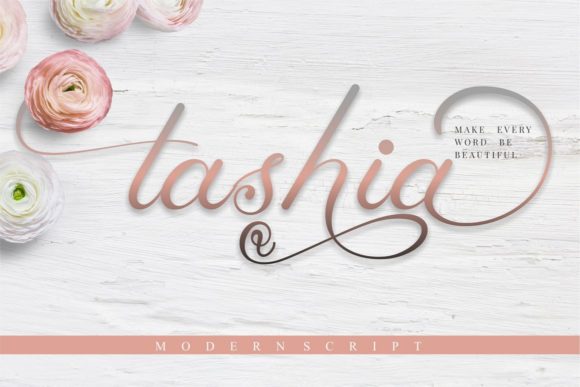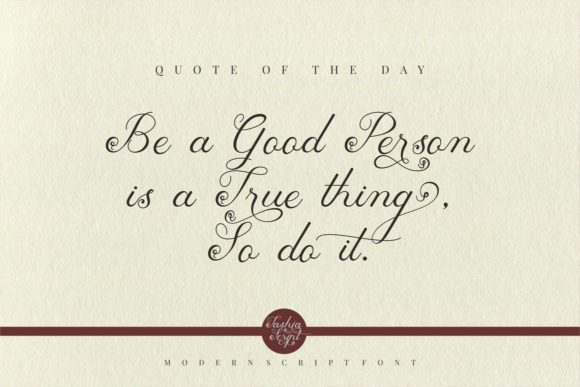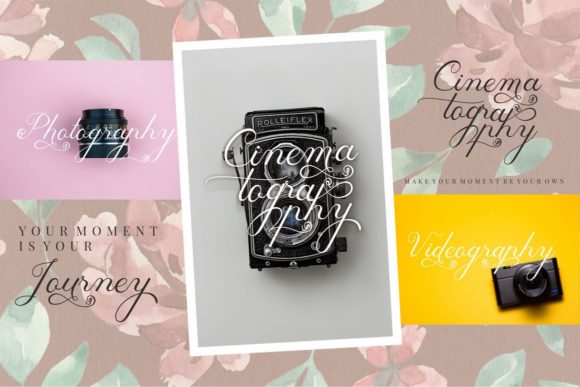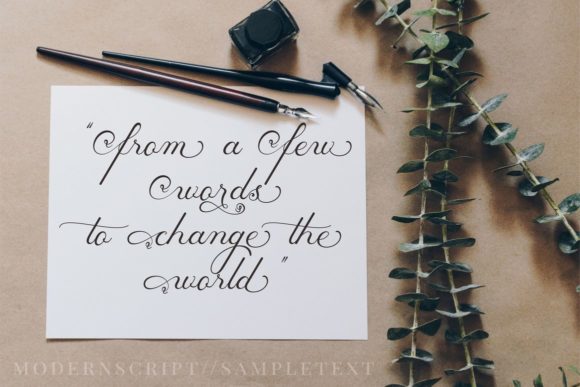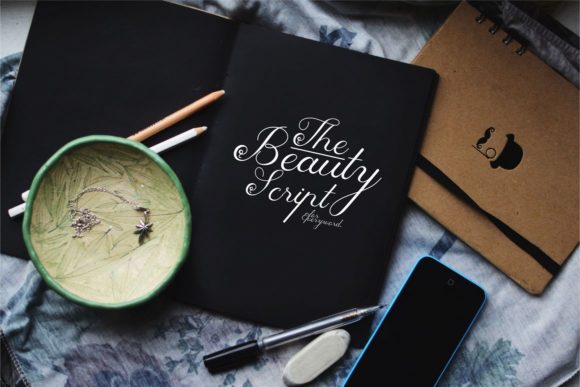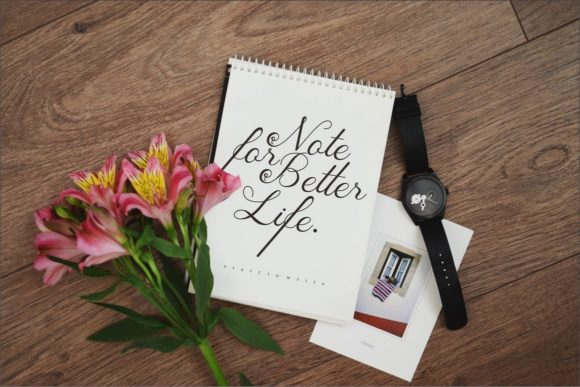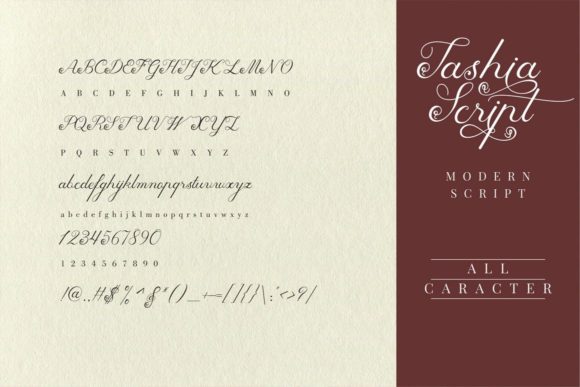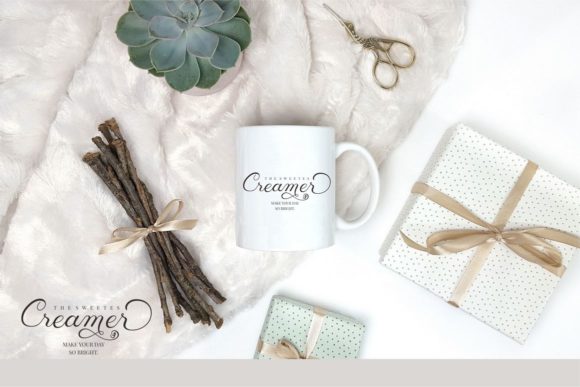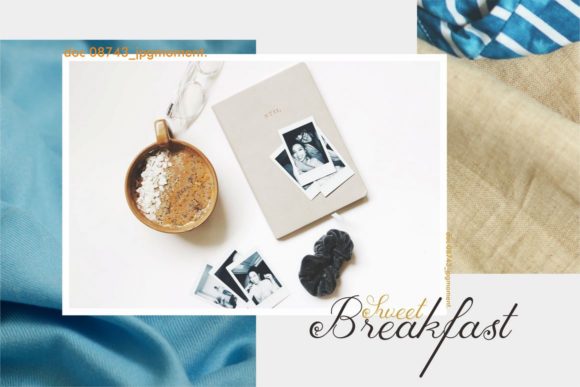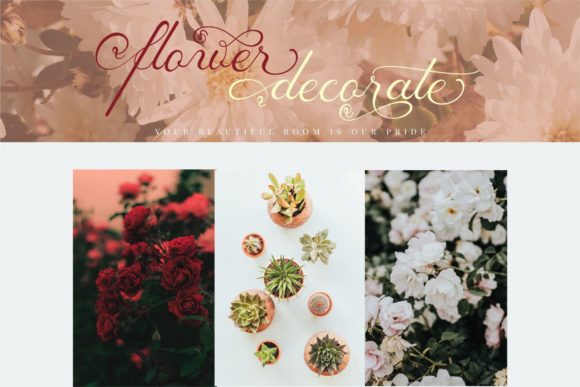
Tashia Font
About Tashia Font
Tashia is a playful, yet sophisticated handwritten font with a stunning feel. It will turn any design project into a stunner!